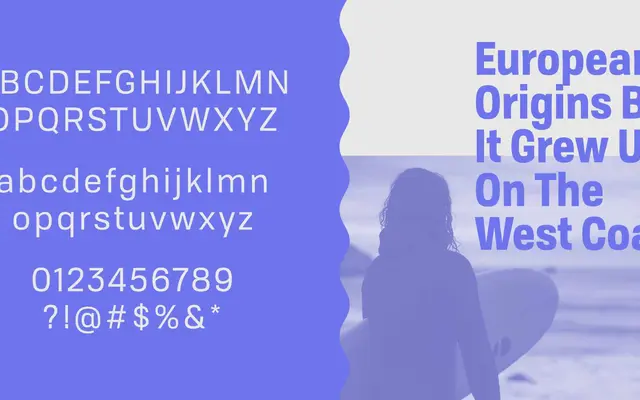
Tofino
Arcane Type Foundry · Alanna Munro · 2015
A neo-grotesque sans from Alanna Munro spanning four widths, nine weights and a dedicated text subfamily, with three-axis variable font support.
Designed by Alanna Munro and first published in 2015, Tofino draws on Swiss neo-grotesque tradition while introducing slightly squared letterforms and a looser quality the foundry attributes to its West Coast British Columbia origins. The family runs across Condensed, Narrow, Standard and Wide widths with up to Ultra weight, plus a separate Text subfamily optimised for small sizes. Two variable font files cover the full range via weight, width and italic axes, with OpenType features including small caps, oldstyle figures and fractions.
Tofino is explicitly described as a neo-grotesque sans serif in the Swiss International Style tradition, with slightly squared, condensed letterforms and a warmth that distinguishes it from strict Helvetica-like neutrality.